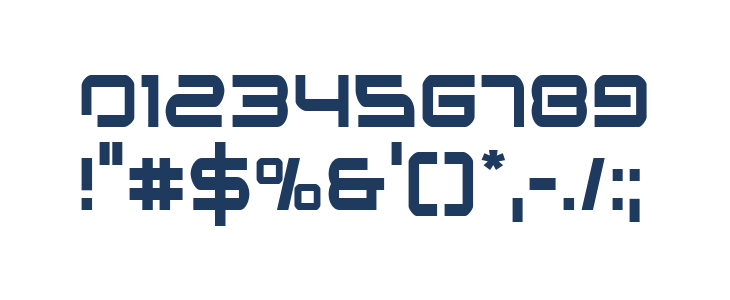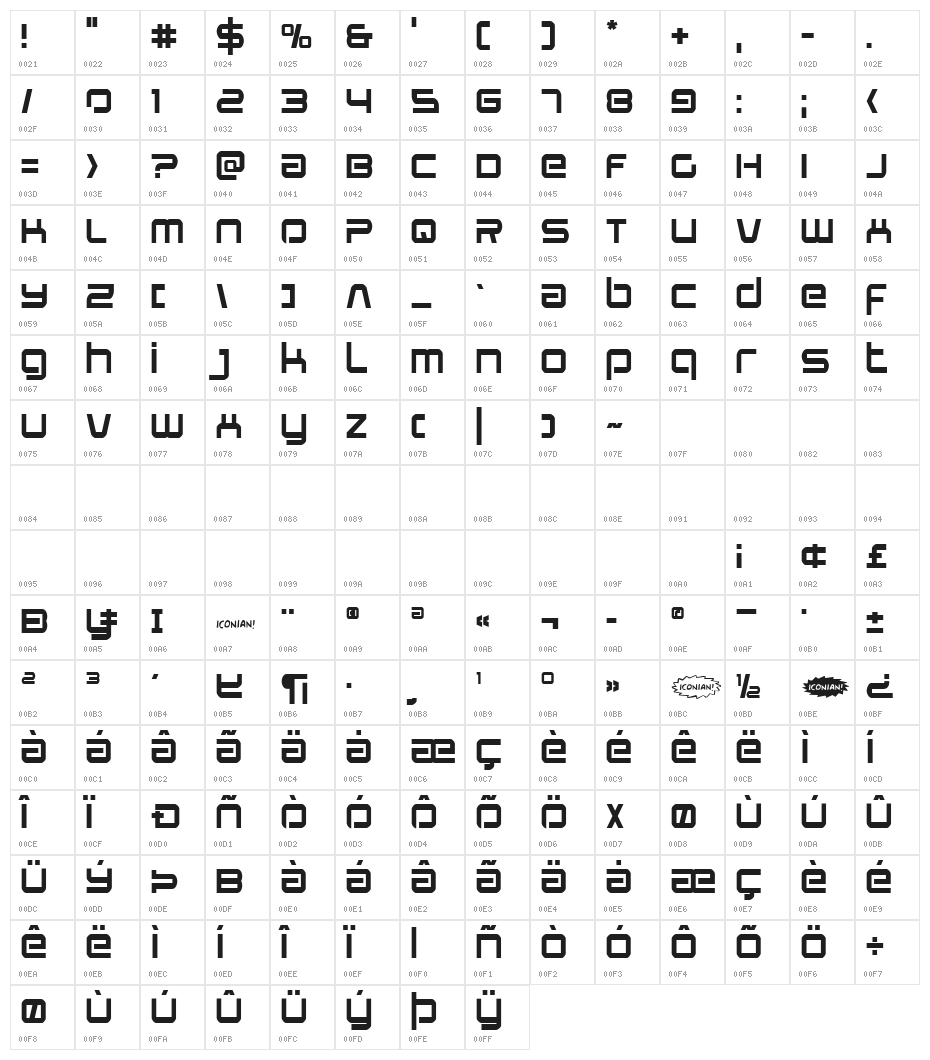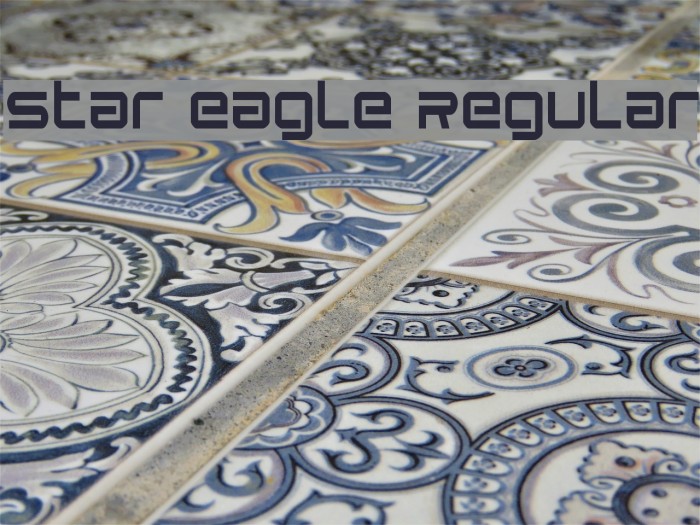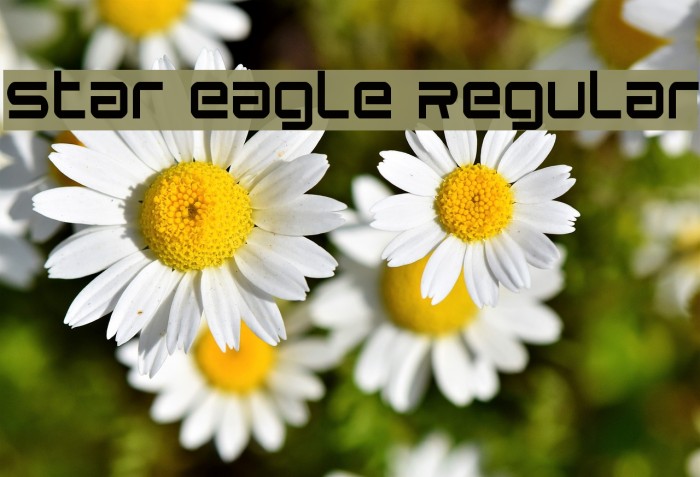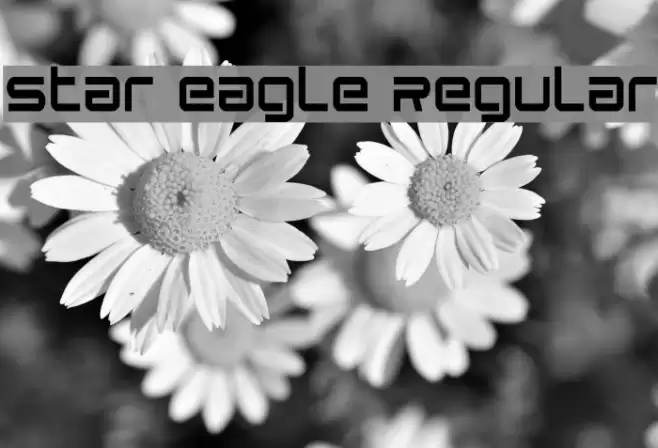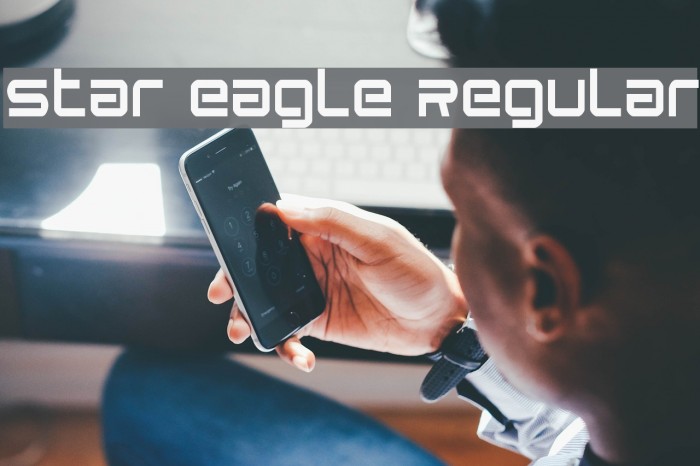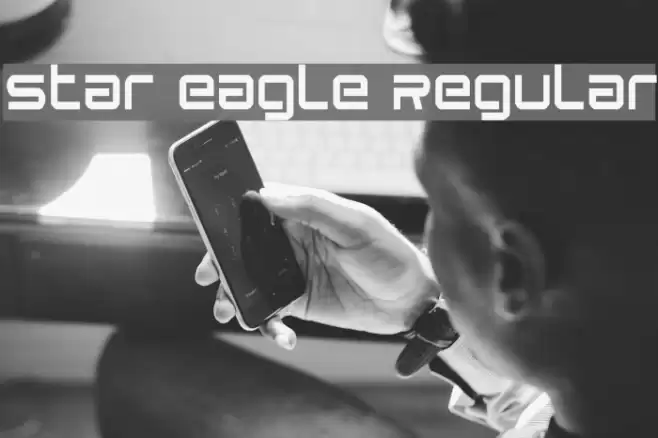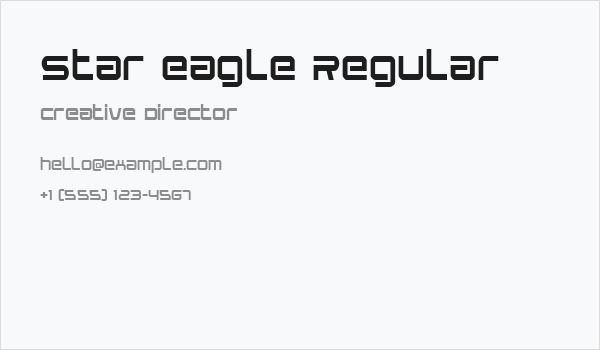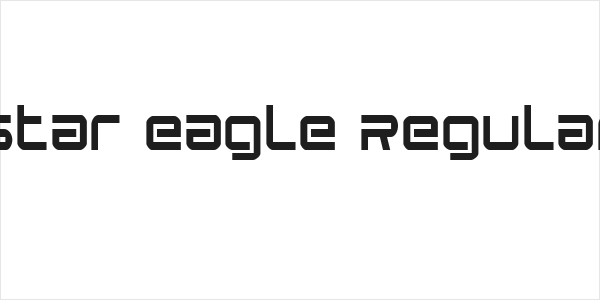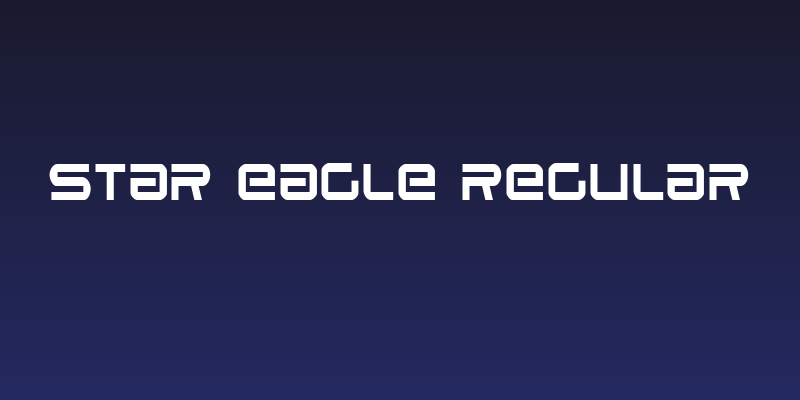
Star Eagle Regular Font
Star Eagle Regular Description
This font features a futuristic and geometric design, characterized by its bold, blocky letterforms with rounded edges. The uppercase and lowercase letters maintain a consistent height, giving it a uniform appearance. The numerals and special characters follow the same design principles, ensuring a cohesive look across all glyphs. The font's style is reminiscent of digital or sci-fi themes, making it suitable for projects that require a modern and tech-savvy aesthetic. Its clean lines and structured form make it highly legible, even at smaller sizes.
| Proposed Projects | Ideal for tech branding, sci-fi posters, video game interfaces, and digital media. |